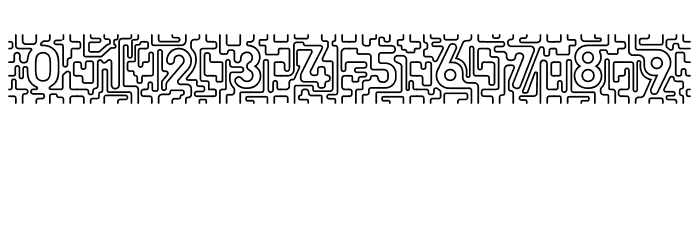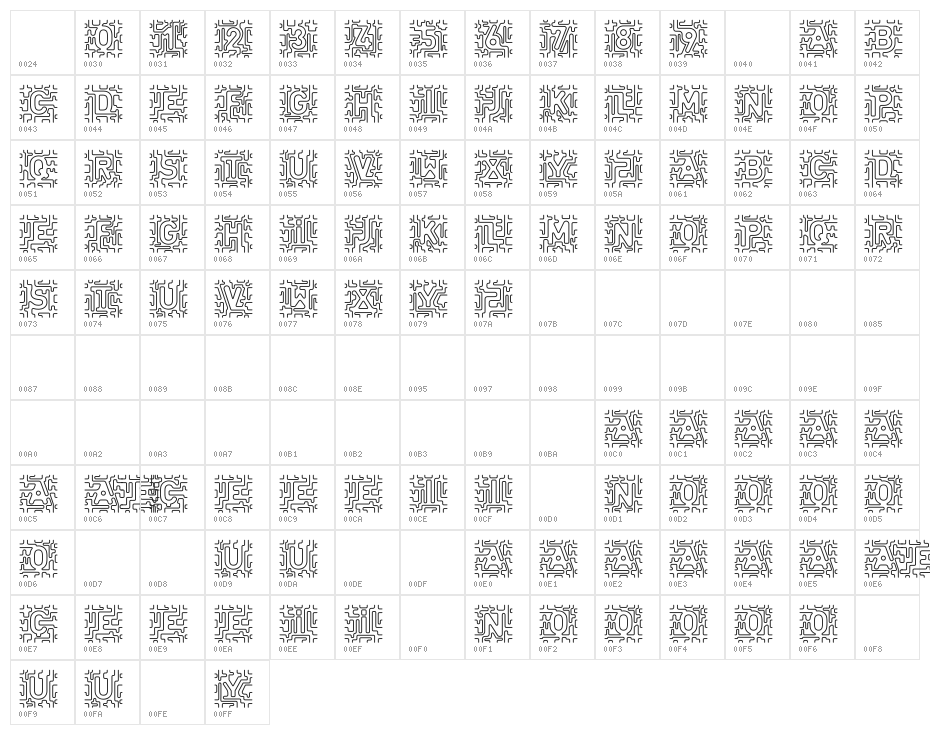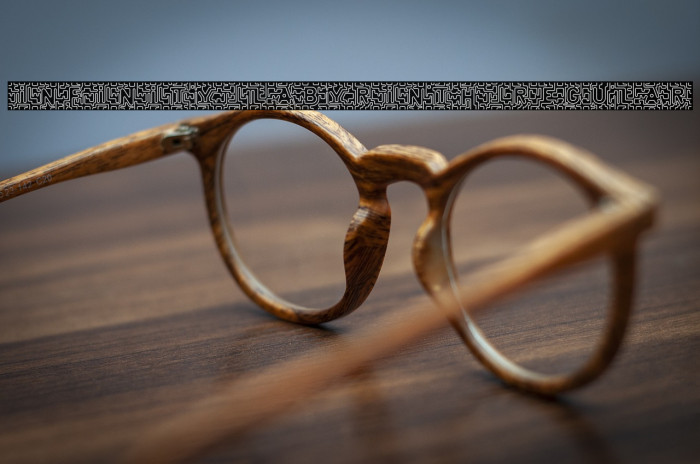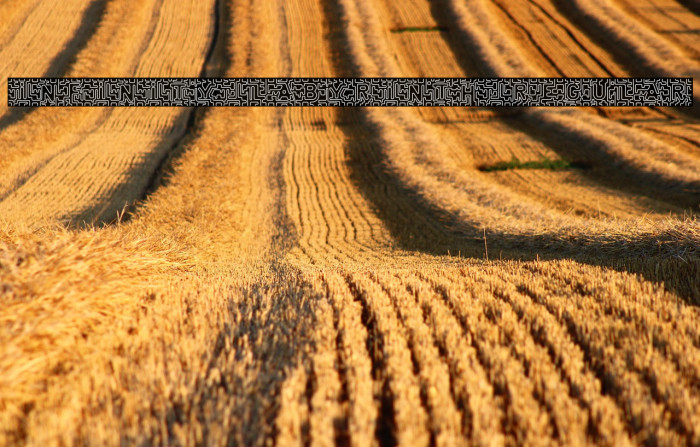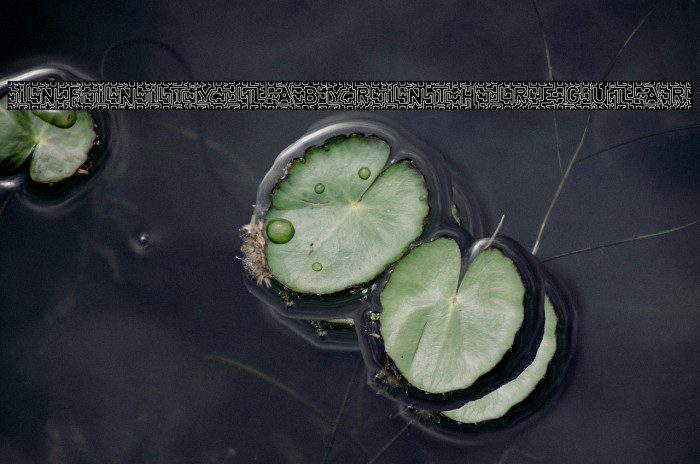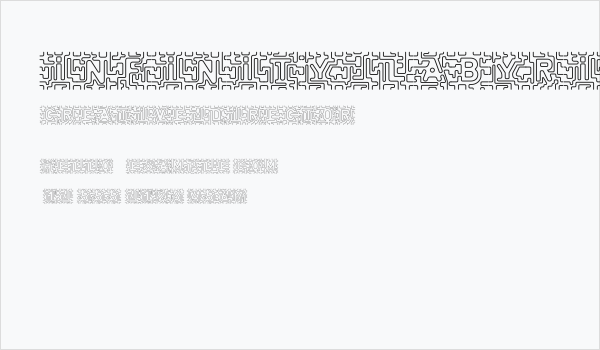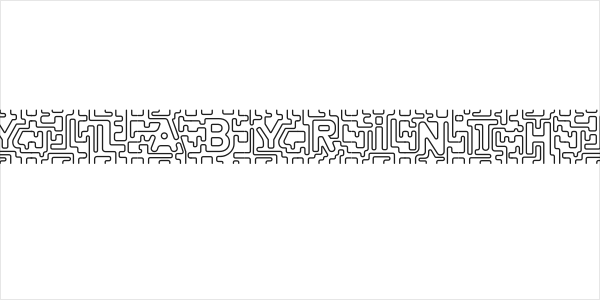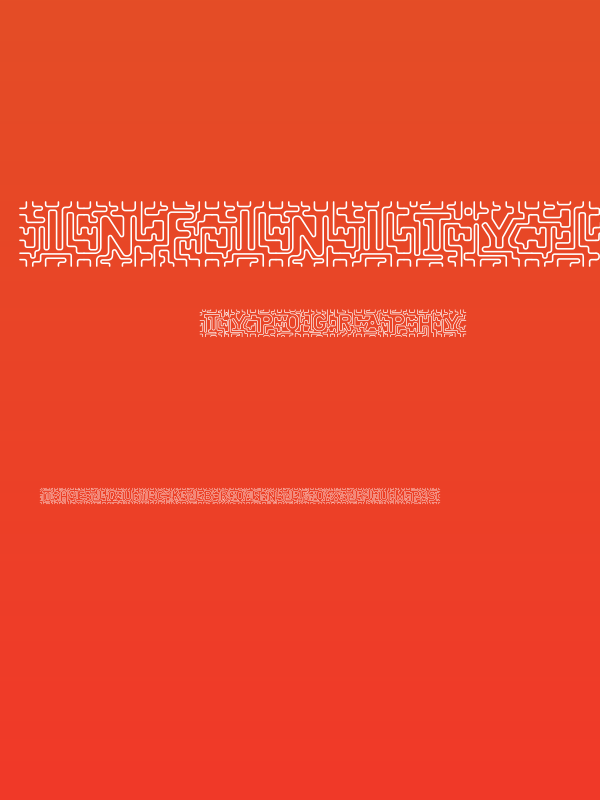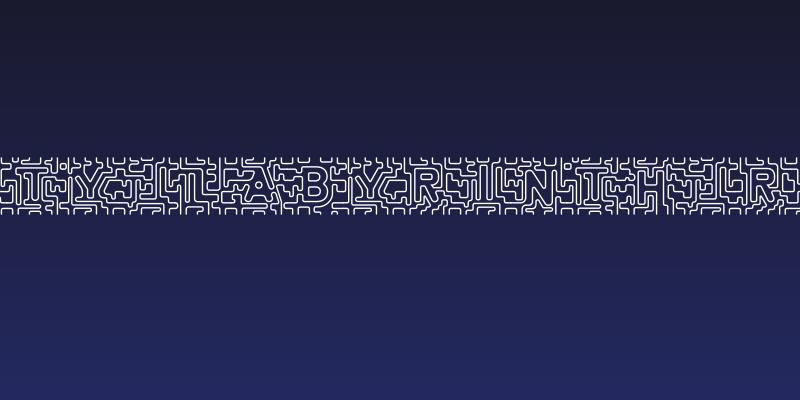
infinity labyrinth Regular Font
infinity labyrinth Regular Description
This font features a unique and intricate labyrinthine design, where each character is composed of a continuous line that forms a maze-like pattern. The letters and numbers are highly decorative, with a complex structure that resembles a puzzle or a network of interconnected paths. The overall appearance is bold and striking, making it ideal for creative and artistic projects. The font maintains a consistent line thickness throughout, providing a uniform look despite its elaborate design. Its distinct style captures attention and adds a sense of mystery and complexity to any text.
| Use Case | Logos, Headlines, Artistic designs |
| Proposed Projects | Ideal for artistic projects, posters, album covers, and any design requiring a bold, creative touch. |